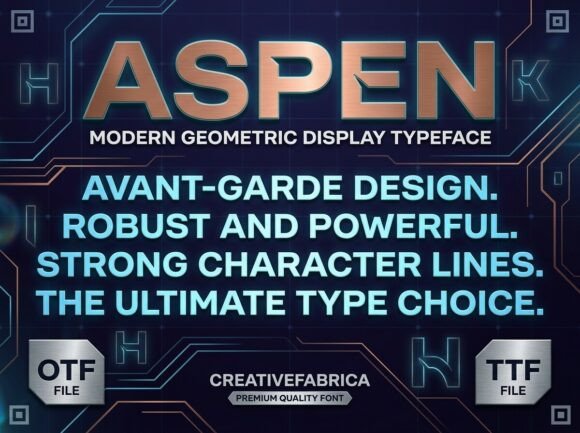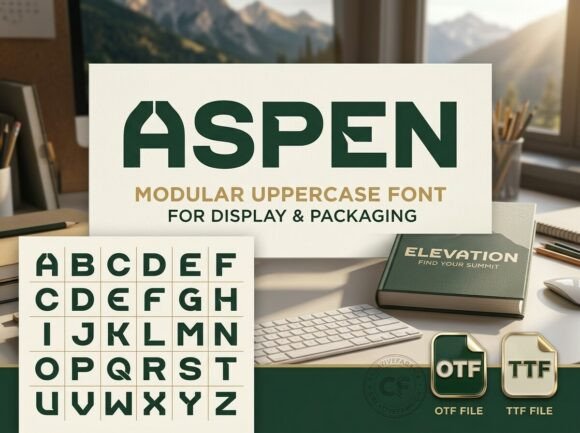
Aspen Font: Elevate Your Design to New Heights with Precision and Style
In the realm of modern design, typography plays a pivotal role in conveying messages, evoking emotions, and establishing brand identities. Among the myriad of fonts available, the Aspen Font stands out as a beacon of innovation and sophistication. Engineered for ultimate precision and visual impact, Aspen is a premium geometric display typeface that redefines the boundaries of modern design.
The Essence of Aspen Font
Aspen’s design is rooted in a unique blend of geometric precision and minimalist aesthetics, making it an exemplary model of “high-tech-minimalist” design. This font features thick, ultra-clean sans-serif letterforms that are meticulously crafted to deliver a sharp, architectural appearance. The defining characteristic of Aspen is its distinctive “cut-out” geometric motif, which lends a futuristic and avant-garde feel to any design project.
Unleash Your Creativity with Aspen
Aspen’s versatility and professional weight make it an ideal choice for a wide range of applications. Whether you’re working on aerospace branding, architectural firm logos, high-end automotive identities, or cinematic “future-tech” social media headers, Aspen is engineered to elevate your design to new heights. Its clean lines and geometric precision ensure that your message is conveyed with clarity and sophistication, making it perfect for designers and crafters aiming to leave a lasting impression.
Key Features of Aspen Font
- Geometric Precision: Aspen’s design is based on precise geometric shapes, ensuring a clean and modern look.
- Ultra-Clean Sans-Serif Letterforms: The font features thick, clean lines that provide a sharp and architectural appearance.
- Unique “Cut-Out” Motif: A distinctive geometric cut-out motif sets Aspen apart, giving it a futuristic feel.
- High-Tech-Minimalist Soul: Aspen embodies a perfect blend of high-tech precision and minimalist aesthetics.
- Professional Weight: Designed for professional use, Aspen is suitable for high-end branding and design projects.
Applications of Aspen Font
Aspen’s unique characteristics make it suitable for a variety of design applications, including:
- Aerospace Branding: Aspen’s futuristic and precise design makes it perfect for aerospace companies looking to establish a modern and innovative brand image.
- Architectural Firm Logos: The font’s architectural appearance and geometric precision make it an excellent choice for architectural firms seeking a professional and sophisticated logo.
- High-End Automotive Identities: Aspen’s sleek and modern design is well-suited for high-end automotive brands aiming to convey luxury, precision, and innovation.
- Cinematic “Future-Tech” Social Media Headers: For social media headers that demand a futuristic and attention-grabbing appearance, Aspen is the ideal choice.
Why Choose Aspen Font?
In a world where design trends are constantly evolving, Aspen Font offers a timeless solution for designers and crafters seeking to make a statement. Its unique blend of geometric precision, minimalist aesthetics, and professional weight ensures that your design stands out from the crowd. By choosing Aspen, you’re not just selecting a font; you’re embracing a design philosophy that prioritizes precision, innovation, and visual impact.
Aspen Font is more than just a typeface; it’s a design experience that combines the best of modern technology with the principles of minimalist aesthetics. Whether you’re a designer, a crafter, or simply someone who appreciates the art of typography, Aspen offers a world of creative possibilities. Experience the peak of modern design with Aspen and discover how this premium geometric display typeface can elevate your projects to new heights of sophistication and style.